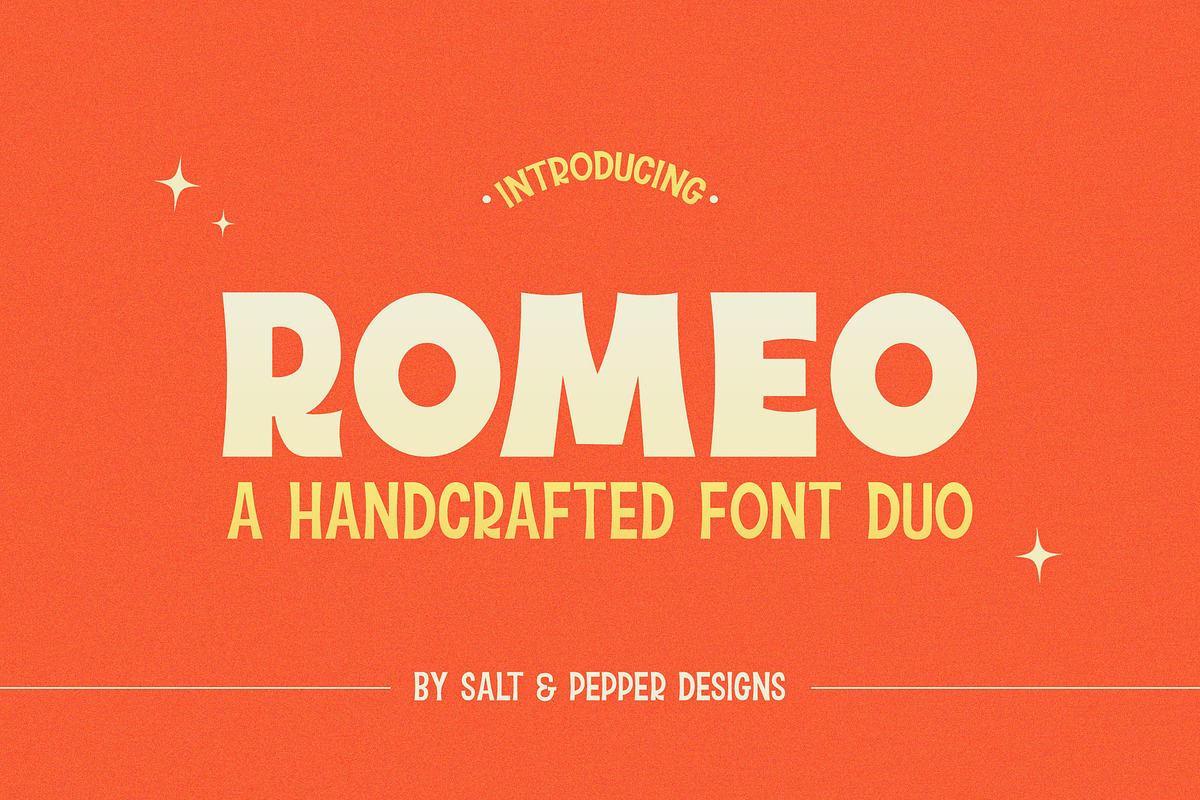
Romeo Font Duo Free Download
Romeo Font Duo Free Download is a stylish and versatile typeface pairing that combines a modern script with a clean sans serif. Perfect for logos, wedding invitations, branding, social media graphics, and packaging, this duo allows for seamless contrast and beautiful typographic harmony in your designs.
The handwritten script brings elegance and personality, while the sans serif offers clarity and balance—making Romeo an ideal choice for projects that need both flair and functionality. Whether you're going for romantic, minimal, or modern aesthetics, this font duo adapts effortlessly.